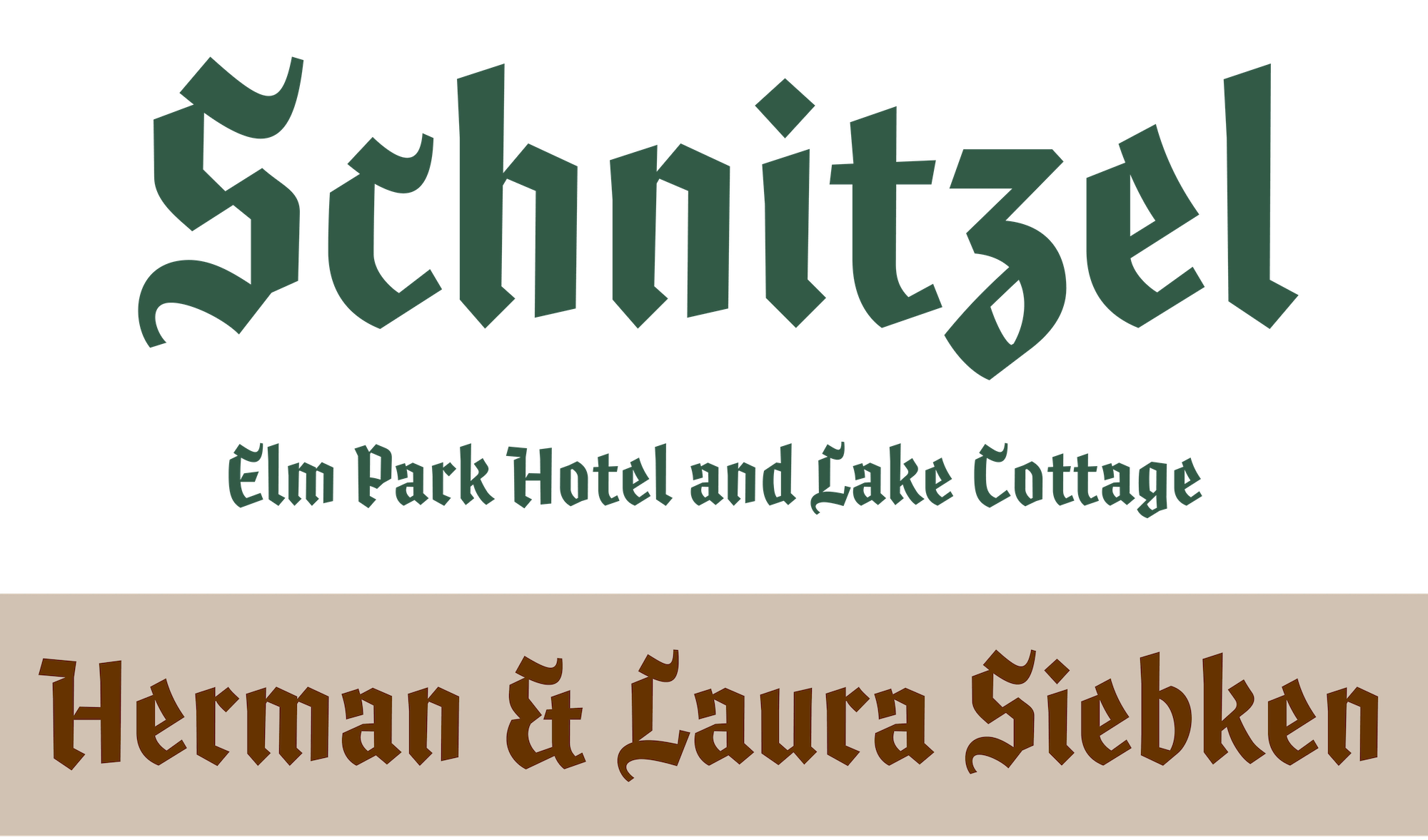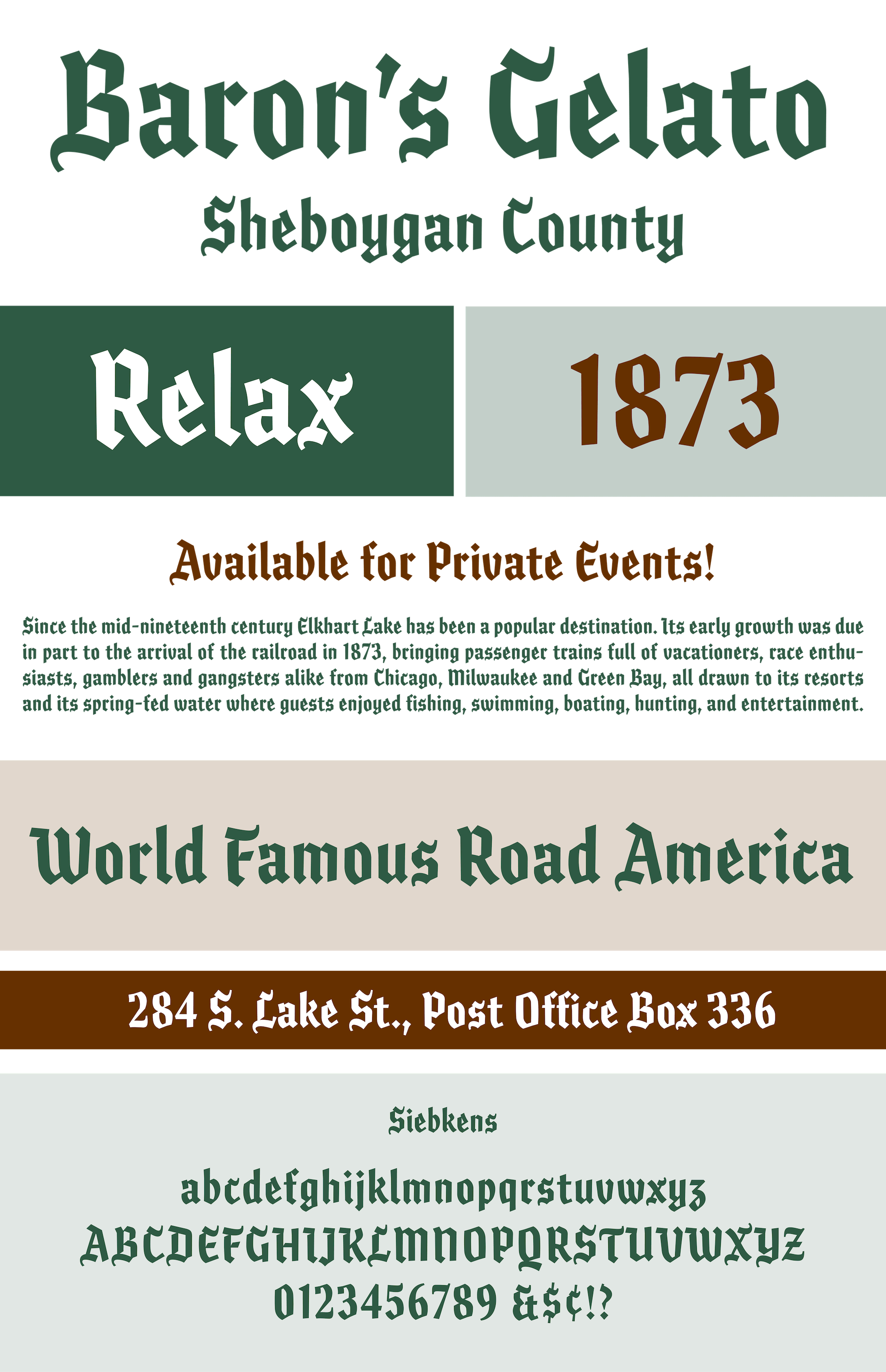
Siebkens, Applied Arts
In rebranding Siebkens, Applied Arts tapped into the Wisconsin-based resort’s legacy by revisiting an array of early logotype that creative director, Tyson Thorne, had discovered. Deciding to go with the black letter inspiration, LuxTypo developed a new logotype for the resort. As appeal for the logotype grew and application needs arose, it was decided to extend this limited character set into a full font to sup- port the marketing and identity needs of the brand.